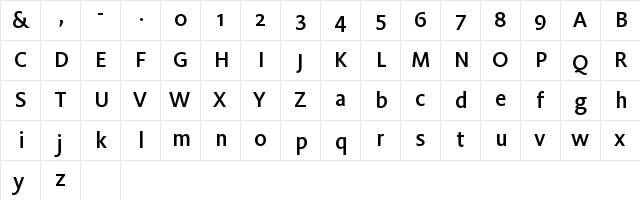
Flex Medium
Medium · Paul van der Laan Paul van der Laan ·
DesignerPaul van der Laan
Design Context for Flex Typeface
Flex takes a measured approach to typography — its balanced proportions and neutral character make it a reliable workhorse for both digital and print work.